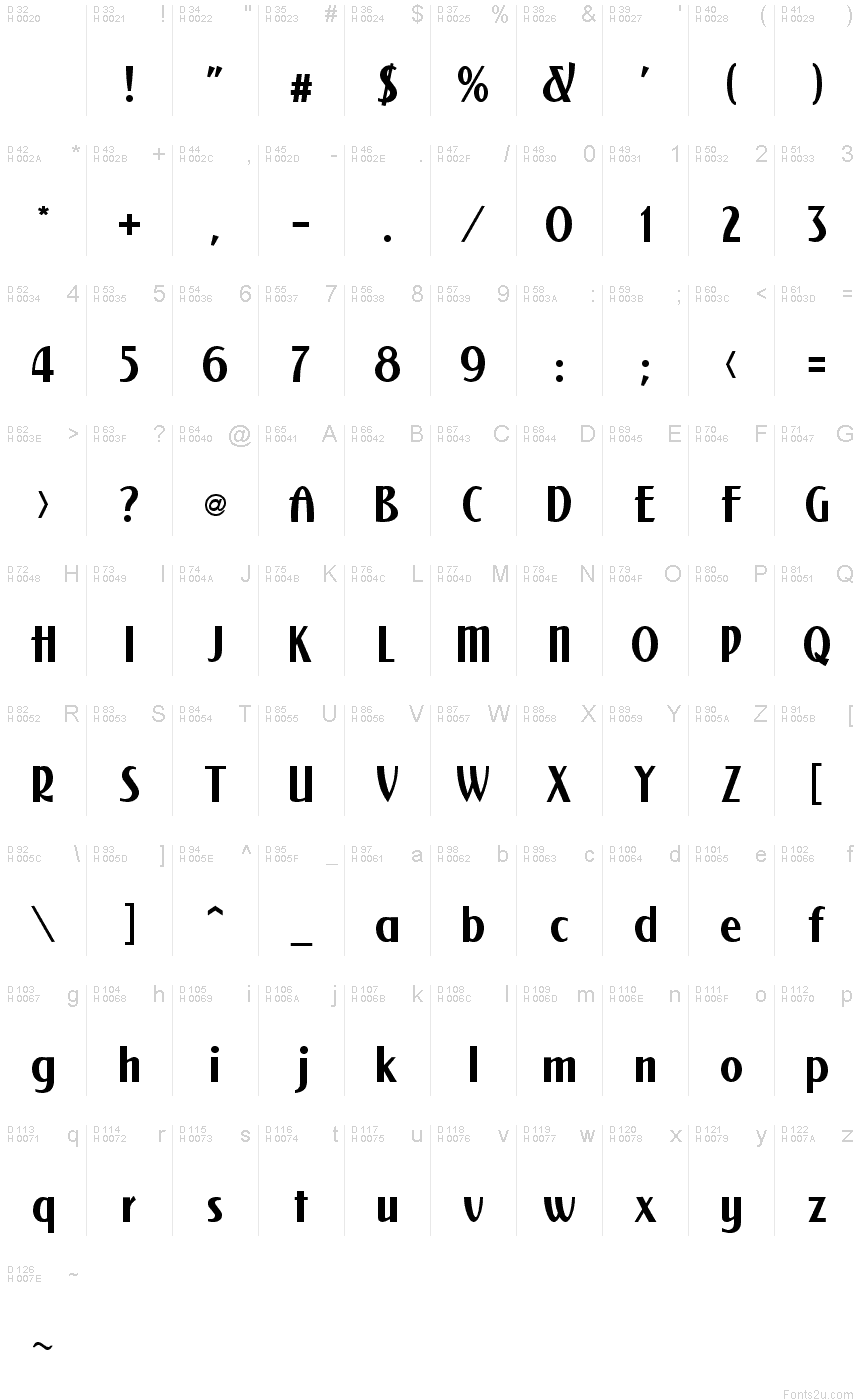
NewForum by Thomas E. Harvey is a free high-contrast serif display font with sweeping curves and sharply tapered strokes. Its tall, poised letters mix broad verticals with narrow joins, producing an elegant but slightly eccentric silhouette.
It gives magazine mastheads a distinctly editorial voice. The sculptural forms also suit fashion campaigns, luxury packaging, and cultural event posters, especially when the typography needs to feel refined rather than reserved. Their dramatic stroke changes connect these uses to fashion publishing and arts programming, where expressive letterforms often become part of the overall image.